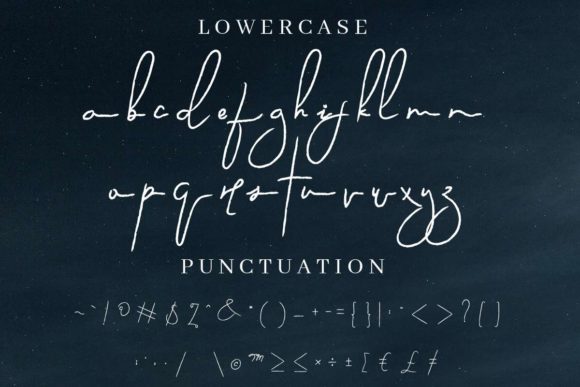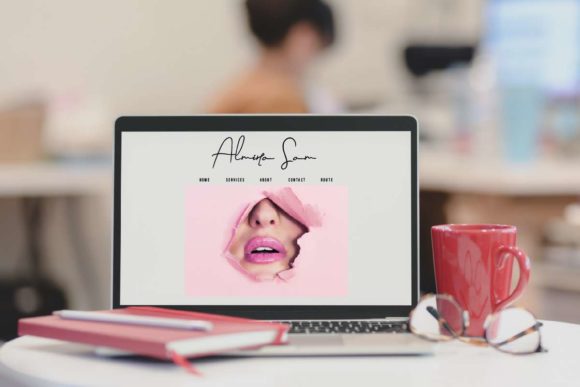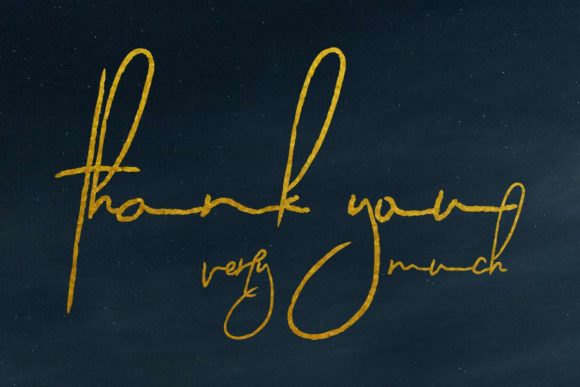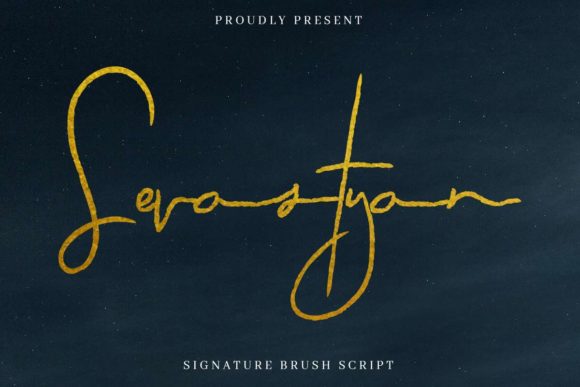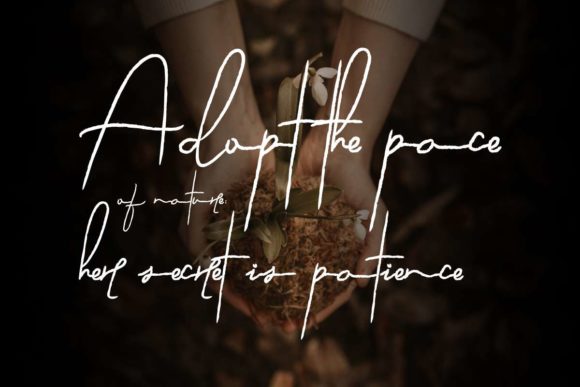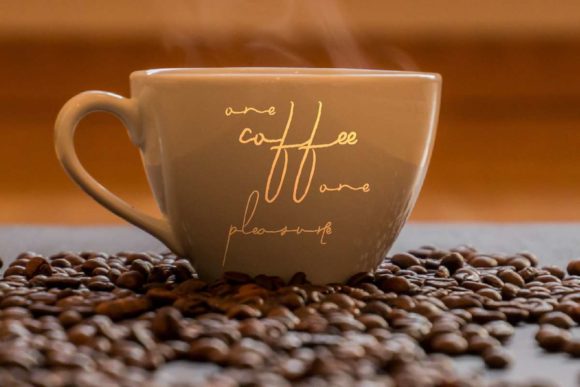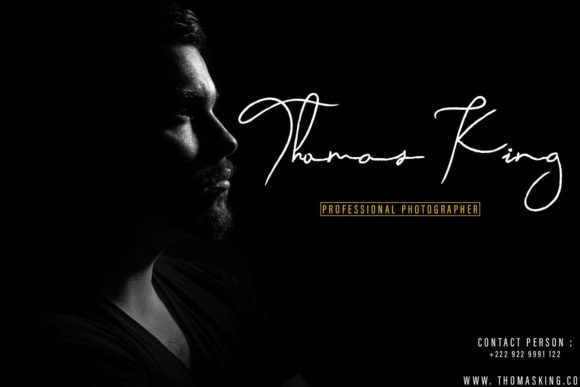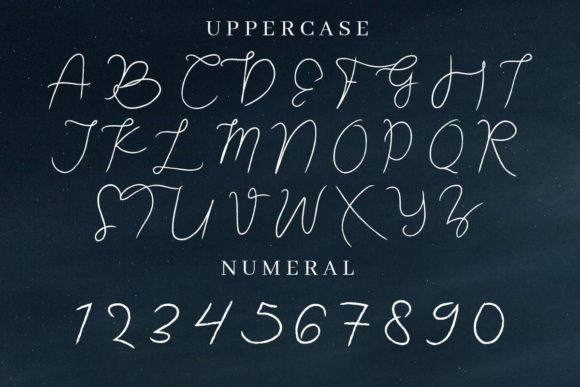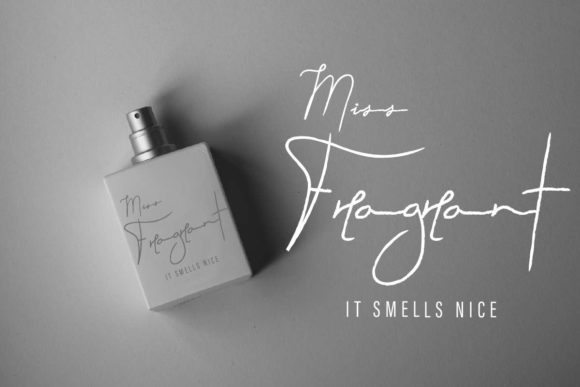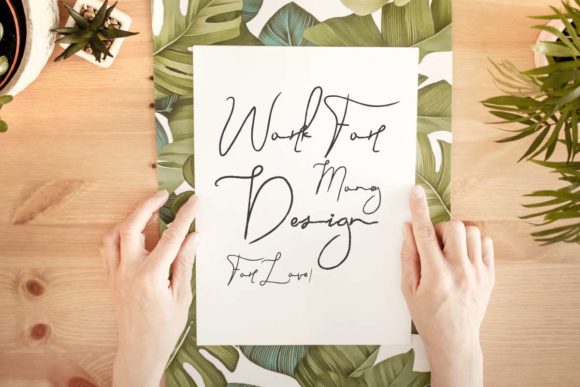
Sevastyan Font
Sevastyan is an incredibly unique and stylish handwritten font. Due to its very relaxed feel, it perfectly matches any design project you envision to create!